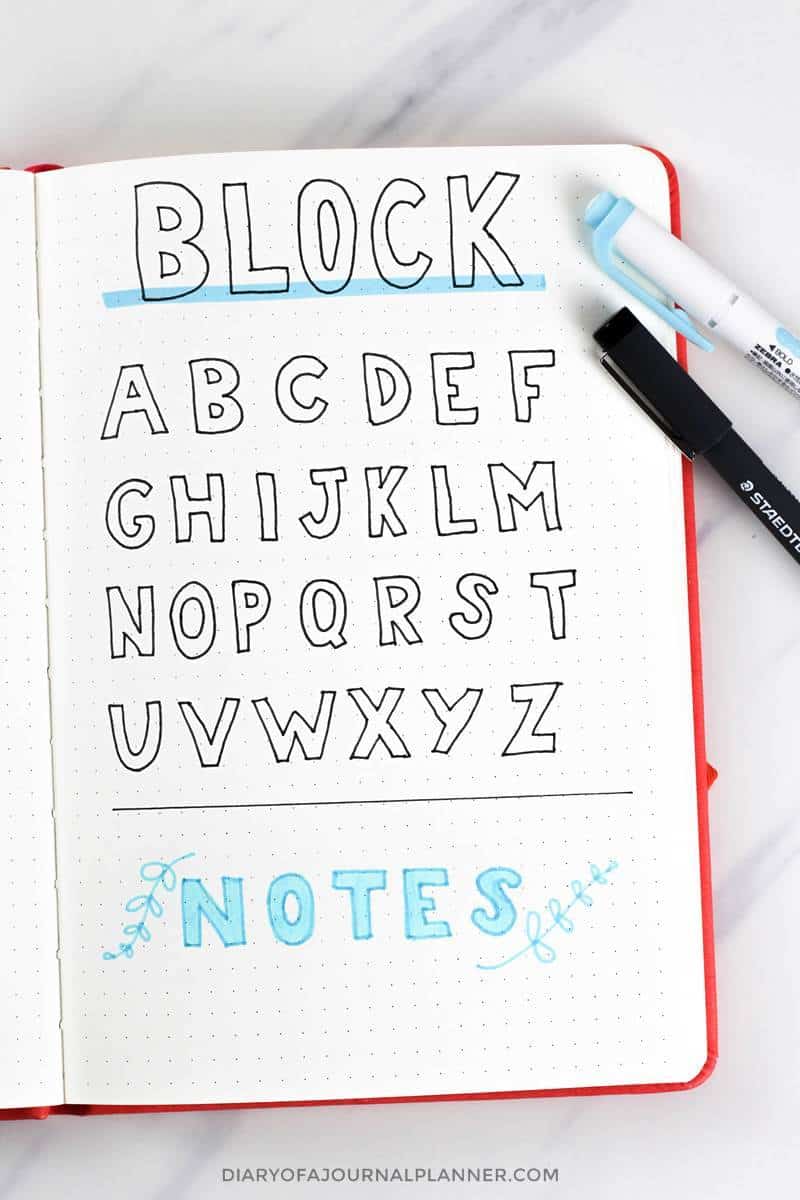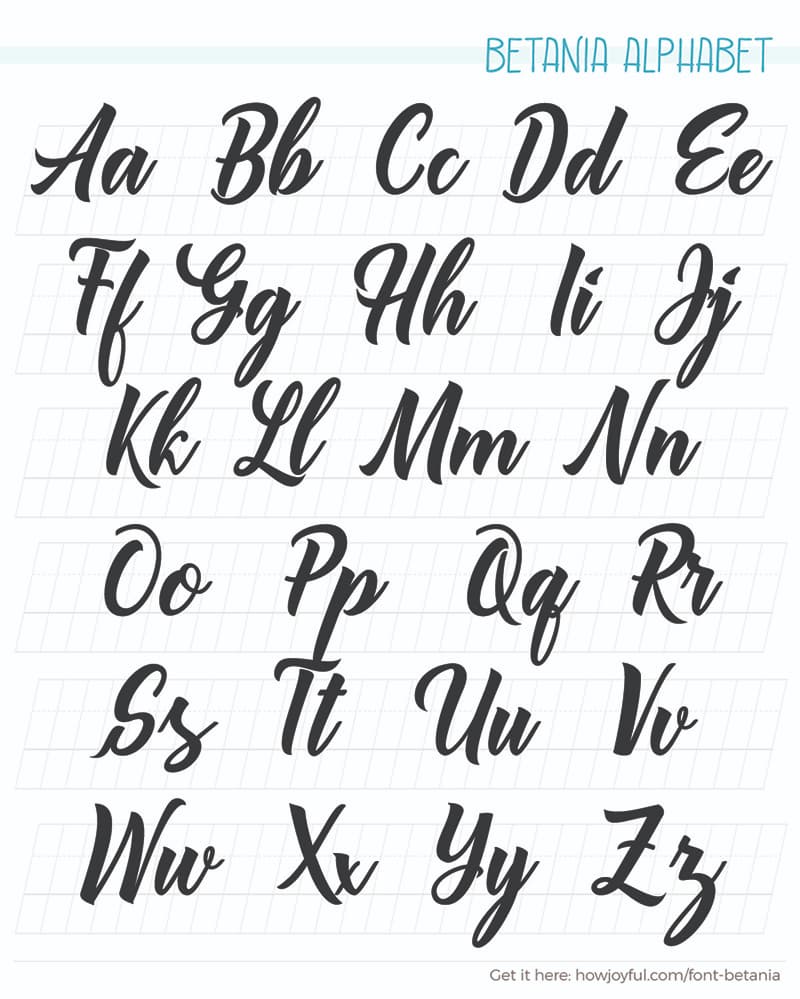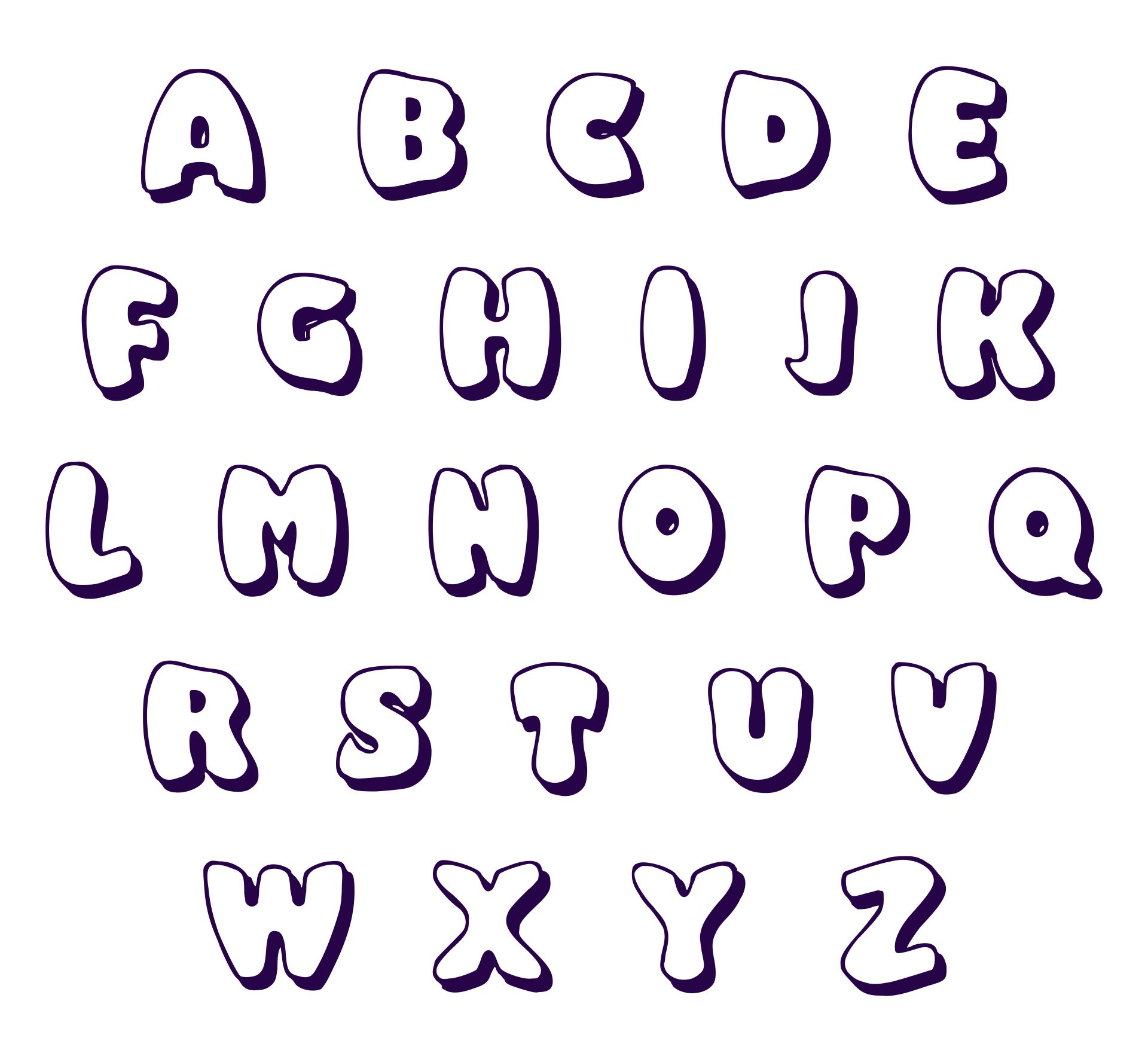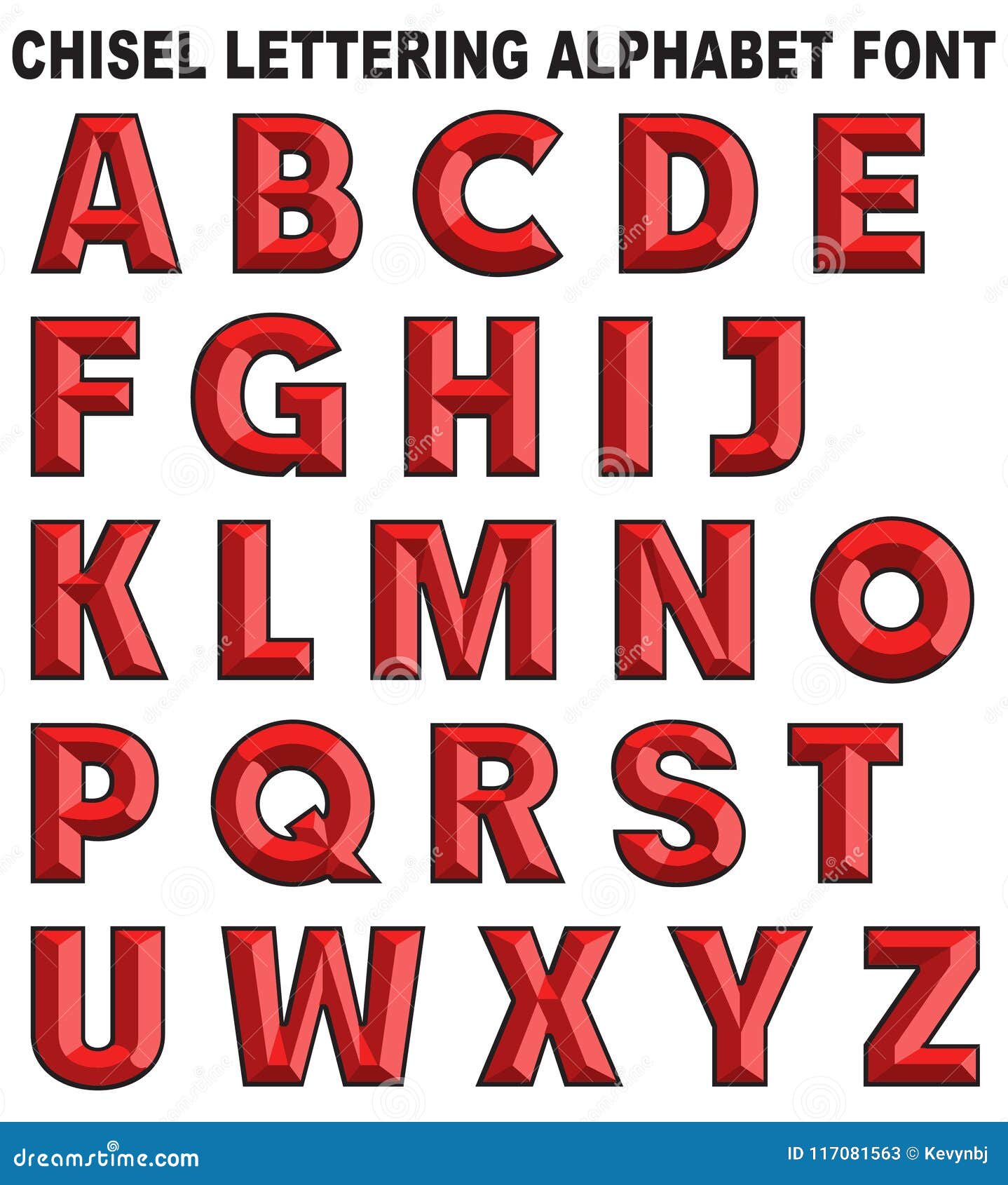
The font styles for tattoos are limitless. Fire Ice Decorative Typewriter Stencil Army Retro Initials Grid Various.
Calligraphy is an ancient writing technique using flat edged pens to create artistic lettering using thick and thin lines depending on the direction of the stroke.
Hand-lettered is the style where you draw each letter individually as opposed to writing them as in cursive or calligraphy. Because of this styling youll often see sans serif fonts used in short blocks of text. Classic brush style calligraphy font with elegant and dramatic Caps.
Chinese Jpn Arabic Mexican Roman Greek Russian Various. You can give these font styles a bold look as well as italicize them. The app used Unicode characters from different languages as well as phonetic alphabets and different font styles such as calligraphy cursive italic bold web script handwriting and lot of others.
4853 Free Handwritten Fonts 1001 Fonts Font Categories. The short ascenders and descenders. The height of calligraphy was reached in the middle age where monks developed the narrow writing style called gothic allowing more words to fit on a single line as paper was expensive at the time.
Download them for use in your digital products for Android iOS and web. Sans Serif fonts are fonts that dont have serifs the small lines often seen at the ends of most letters Theyre popular for their modern simple and minimalist style. Hand lettering is an art form that takes practice and discipline and can mimic calligraphy or other styles.
When you start modifying the shapes of the letters you are now illustrating hand-drawn lettering. Collection of fonts for Lettering. Looking for Style fonts.
Rules govern the shape and execution of these letters similarly to a font. Calligraphy is the design and creation of hand lettering with a brush or other writing tool. Athoor Style fonts are serif fonts that combine signature styles and retro textures Athoor style fonts are very easy to use in a variety of your design work such as posters company logos company brochures marketing on websites magazines book covers business cards clothes resume and all design work come up with your best ideas for coming up with the best style of.
Traditional calligraphy covers specific hand-lettering styles like Copperplate and Spencerian that were created with distinct strokes and formations. Lettering styles include tribal traditional sailor blackletter fancy cursive script etc. Browse dozens of font categories such as calligraphy handwriting script and more.
Cartoon Comic Groovy Old School Curly Western Eroded Distorted Destroy Horror.